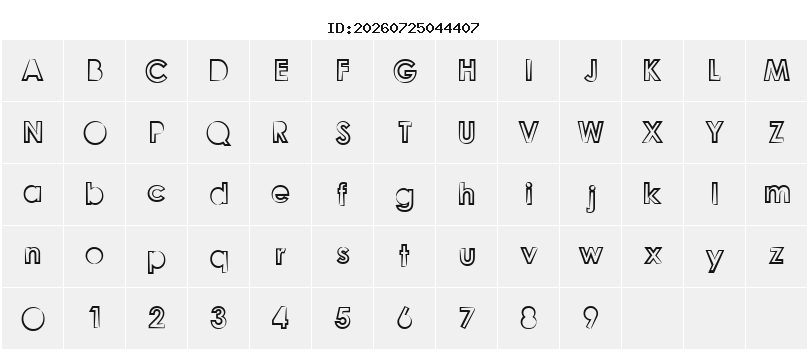
Goonberry2 Preview
• Designer: ©Emily Finta
About Goonberry2.ttf
Goonberry2.ttf is a modern, elegant sans-serif font designed for ultimate readability and visual harmony. Perfect for branding, headlines, web design, and print materials.